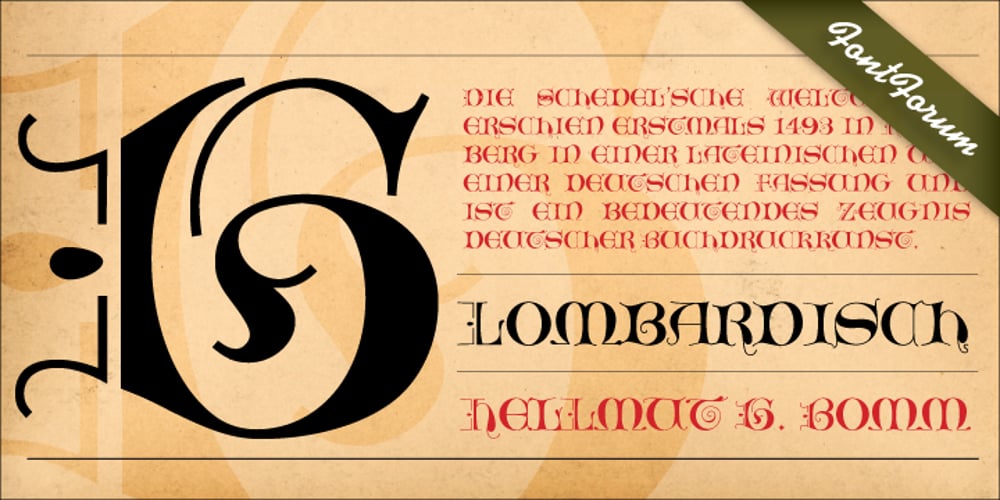
Lombardisch
Lombardisch font
Lombardisch Font Family was designed by Hellmut G. Bomm and published by URW Type Foundry. Lombardisch contains 1 styles and family package options. In mediaeval times, Lombardic initials were popular for embellished upper case in handwriting. Also, in ancient print products of the reanaissance, like e.g. in the ?Schedelschen Weltchronik? of 1493, Lombardic initials were used to mark indentions. In other cases, Lombardic initials were set for Inscripts, like e.g. at the Gotische M�nster in Schw�bisch-Gm�nd.